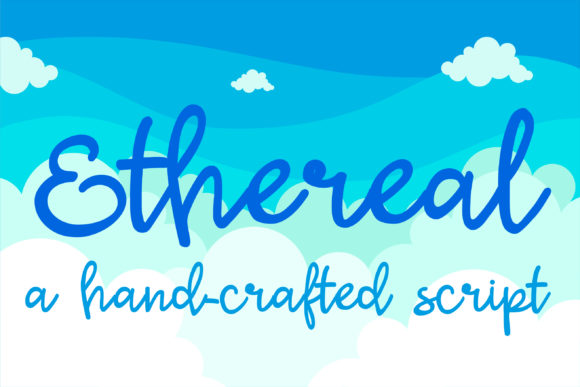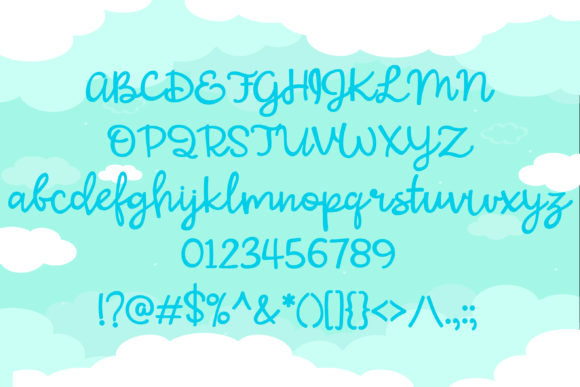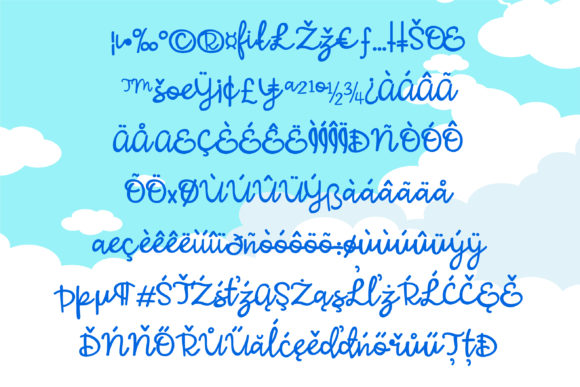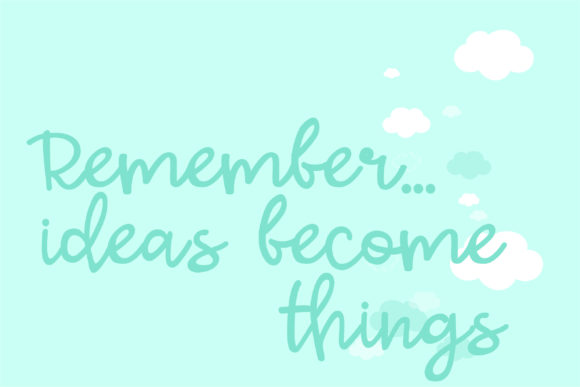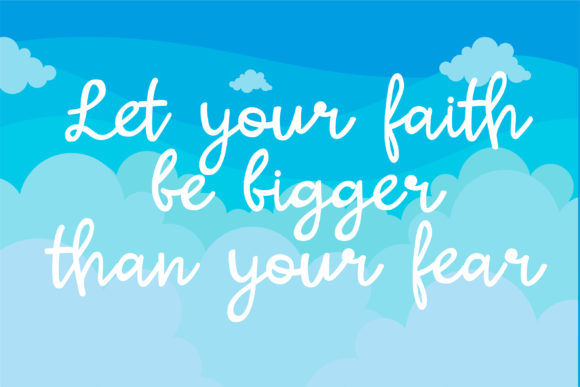
HomeScript FontsEthereal Font Script Fonts Ethereal Font FacebookXPinterestWhatsApp Ethereal Font Poster 2 Ethereal Font Poster 3 Ethereal Font Poster 4 Ethereal Font Poster 5 About Ethereal Font Ethereal is a light and charming handwritten font with a unique feel. Get inspired by its authentic charm! DOWNLOAD ON CREATIVE FABRICAThis font is sold and delivered by Creative Fabrica. Font Canyon may earn a commission if you buy through this link. People also explored Amazing Magical Font Baby Bloom Font Bracelet Monograms Christmas Font Wedding Vacation Font Orbitens Font Formentera Beach View | Beer Mockup Alaycia Font Raven Font 296 0 TagsEthereal Font Previous articleYakety Script FontNext articleSnailebrate Font LEAVE A REPLY Cancel reply Comment: Please enter your comment! Name:* Please enter your name here Email:* You have entered an incorrect email address! Please enter your email address here Website: Save my name, email, and website in this browser for the next time I comment. Personal Use Free Mowgli Personal Use Free Read more about this font Heartburn Personal Use Free Read more about this font Starry Cakes Personal Use Free Read more about this font Feather Script Personal Use Free Read more about this font BLOG Free vs Paid Fonts: Why Investing in Premium Fonts Is Worth It Free vs Paid Fonts: Why Premium Fonts Are Worth It in 2025 The debate of free vs paid fonts continues in the design world. While... How to Cut Any Font on Cricut: Convert a Font to SVG (Free) Fonts That Capture the Spirit of New York City Using Fonts in Digital Marketing: Tips to Strengthen Your Brand Identity